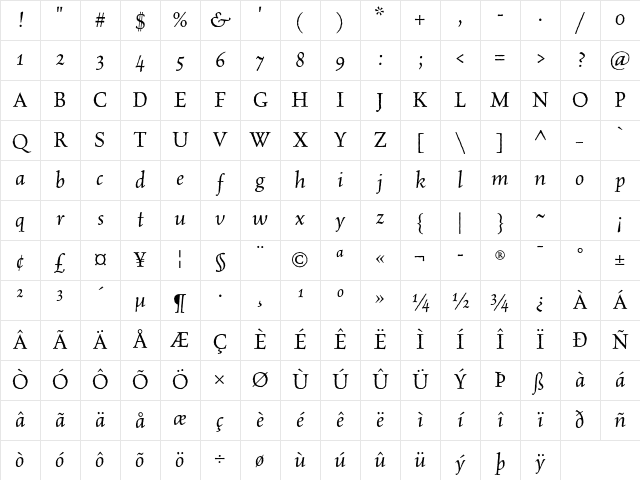
Celestia Antiqua Std Italic
Designer: Mark van Bronkhorst
Design Context for Celestia Antiqua Std
Celestia Antiqua Std is a composed and adaptable typeface that performs quietly and consistently across a wide range of design contexts. The slanted form adds forward momentum and visual energy.
Pro Tip: Use Celestia Antiqua Std for emphasis, pull quotes, and subheadings where its slanted energy can add rhythm to the layout.